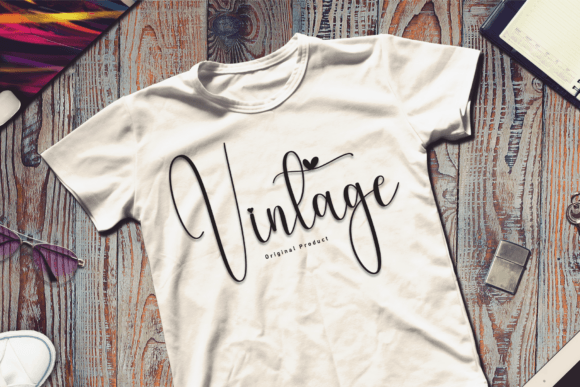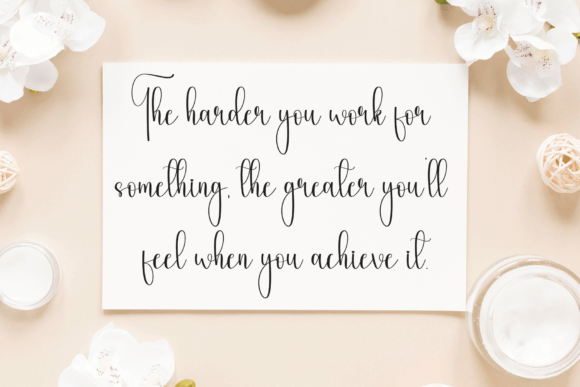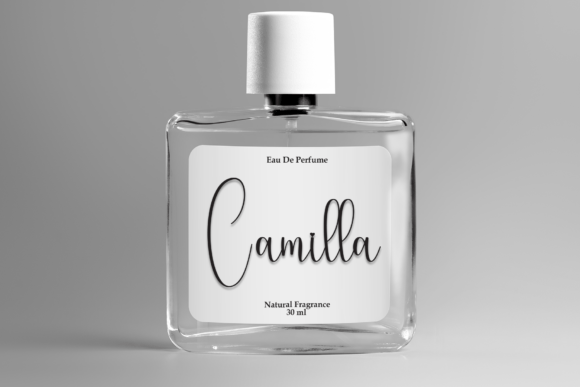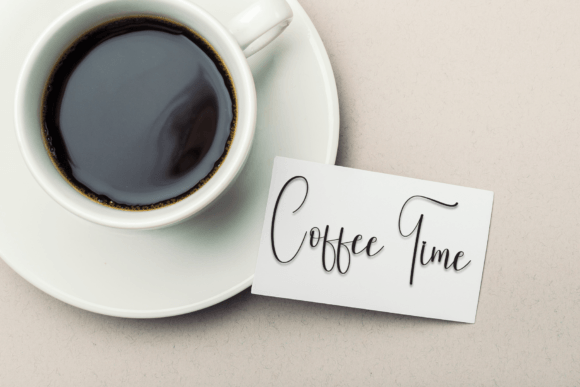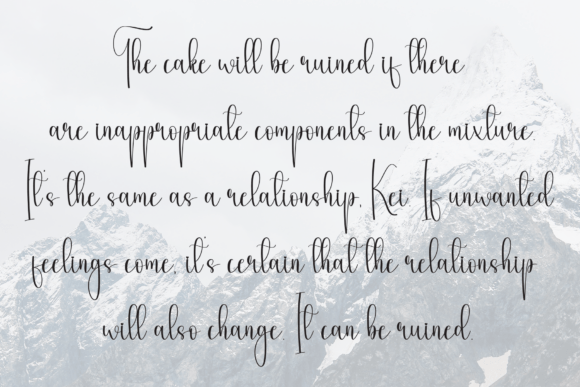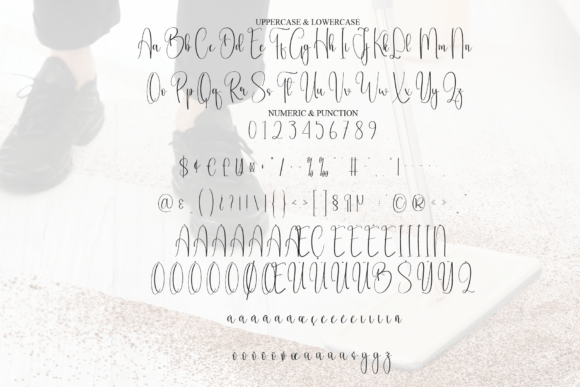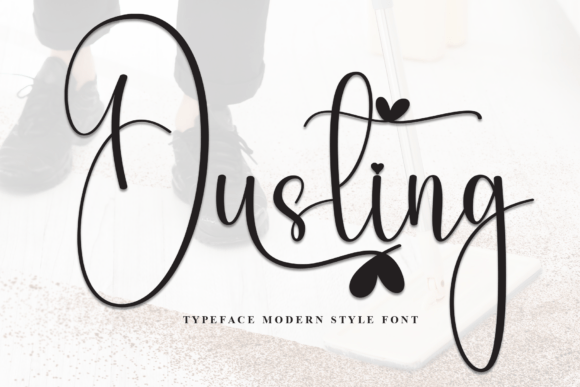
Dusting Font: Elevate Your Designs with Elegance and Charm
In the world of typography, fonts play a crucial role in conveying the tone and personality of a design. For those seeking a romantic and modern script font that exudes elegance and charm, look no further than Dusting. This beautiful font is perfect for wedding invitations, branding, love notes, or any project that needs a delicate yet stylish touch.
The Essence of Dusting Font
Dusting is a thoughtfully crafted script font that embodies the essence of romance and sophistication. Its graceful swirls and heart-inspired accents make it an ideal choice for designers and crafters looking to add a touch of whimsy and charm to their work. Whether you’re creating wedding stationery, branding materials, or simply a heartfelt letter, Dusting is sure to impress.
Key Features of Dusting Font
- Romantic and Modern: Dusting strikes the perfect balance between classic romance and modern style, making it versatile for a wide range of design applications.
- Elegant Swirls: The font features beautiful, flowing swirls that add a touch of sophistication and glamour to any design.
- Heart-Inspired Accents: The heart-inspired accents in Dusting add a playful and whimsical touch, perfect for wedding invitations, love notes, and other romantic designs.
- Delicate yet Stylish: Dusting’s delicate lines and stylish curves make it perfect for designs that require a subtle yet impactful touch.
Uses for Dusting Font
Dusting is a versatile font that can be used in a variety of design applications, including:
- Wedding Invitations: Add a touch of romance and elegance to your wedding stationery with Dusting.
- Branding: Use Dusting to create beautiful and sophisticated branding materials, such as logos, business cards, and letterheads.
- Love Notes: Make your love letters and notes extra special with the charming and whimsical touch of Dusting.
- Stationery: Create beautiful and stylish stationery, such as notebooks, journals, and greeting cards, with Dusting.
Tips for Using Dusting Font
To get the most out of Dusting, here are a few tips to keep in mind:
- Pair with Contrasting Fonts: Pair Dusting with a contrasting font to create visual interest and add depth to your design.
- Experiment with Colors: Dusting looks beautiful in a range of colors, from soft pastels to rich jewel tones. Experiment with different colors to find the perfect fit for your design.
- Pay Attention to Spacing: Make sure to pay attention to spacing when using Dusting, as the elegant swirls and accents can sometimes get crowded.
Dusting is a beautiful and versatile script font that is sure to elevate your designs with its elegance and charm. With its romantic and modern style, delicate yet stylish touch, and heart-inspired accents, Dusting is perfect for a wide range of design applications. Whether you’re a designer, crafter, or simply someone looking to add a touch of whimsy to your work, Dusting is a must-have font in your collection.